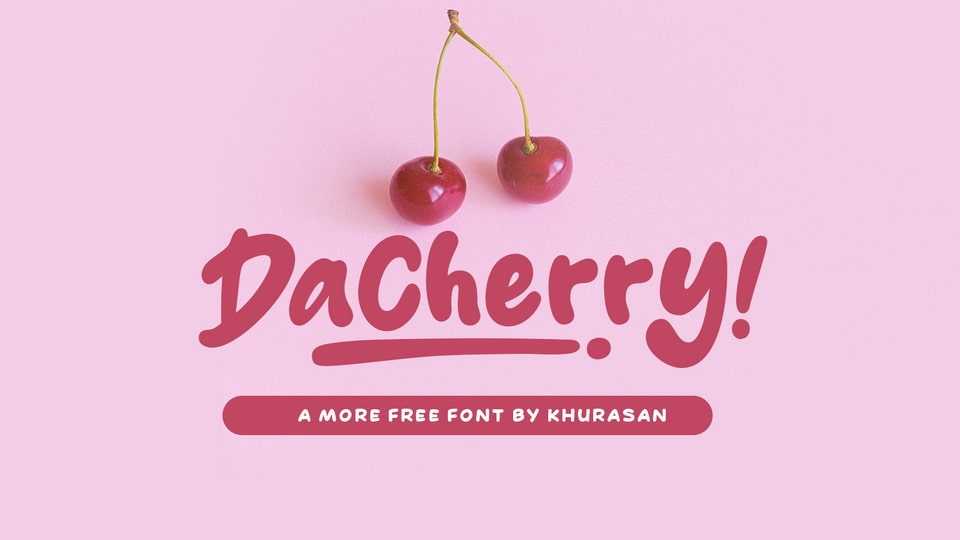
Download Dacherry font, a handwritten cartoon typeface filled with a cheerful, natural vibe. Add a playful and quirky touch to your designs with Dacherry font.